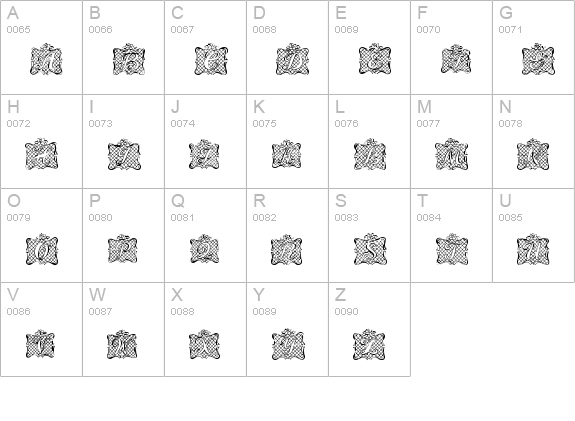
Ribbon Caps Font Details
Introducing Ribbon Caps, a mesmerizing font that effortlessly combines elegance and playfulness. With its unique design, this font is sure to make a statement in any project, whether it be branding, logo design, invitations, or packaging. Ribbon Caps features beautifully crafted uppercase letters adorned with delicate ribbons, adding a touch of sophistication and charm to your designs. The curvaceous nature of the ribbons creates a sense of movement and fluidity, making each character come to life on the page. This font is not only visually appealing, but it also offers versatility. It can be used for both formal and informal projects, allowing you to experiment and create captivating designs that capture the attention of your audience. One of the best things about Ribbon Caps is that it is absolutely free! Yes, you read that right. This font is freely available to download at FontsMarket.com, a trusted source for high-quality fonts. So, whether you're a professional designer or just starting your creative journey, you can easily access this font and bring your visions to life. Don't miss out on the opportunity to add Ribbon Caps to your font collection. Download it today and embark on a creative adventure filled with elegance, charm, and endless possibilities.